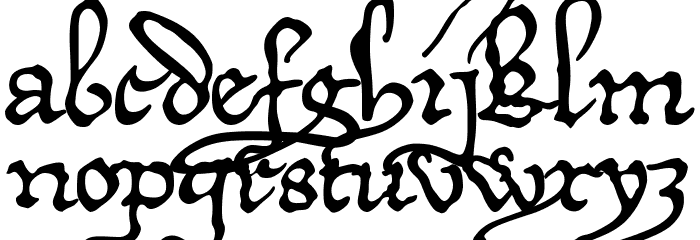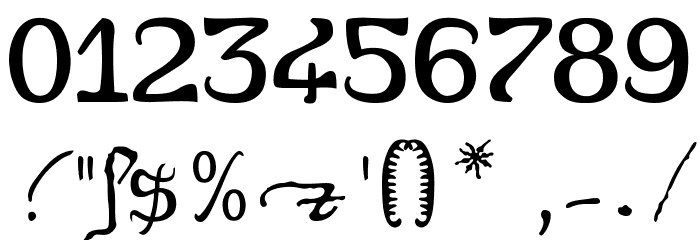
DeiGratia Font
This font exhibits a highly decorative and intricate style, reminiscent of medieval script with a modern twist. The uppercase letters feature elaborate flourishes and sharp angles, creating a sense of elegance and complexity. The lowercase letters maintain a similar aesthetic, with flowing lines and unique character shapes that suggest a handcrafted quality. The numerals are bold and distinct, complementing the ornate style of the alphabet. Special characters are equally detailed, adding to the overall cohesive design. This font is ideal for projects that require a touch of historical or fantasy elements, offering a dramatic and eye-catching appearance.
An ornate, medieval-inspired font with intricate flourishes and bold characters.
- Font: DeiGratia
- Proposed Projects: Perfect for fantasy book covers, historical event invitations, or themed branding materials.
- Use Case: Logos, Headlines, Themed Designs